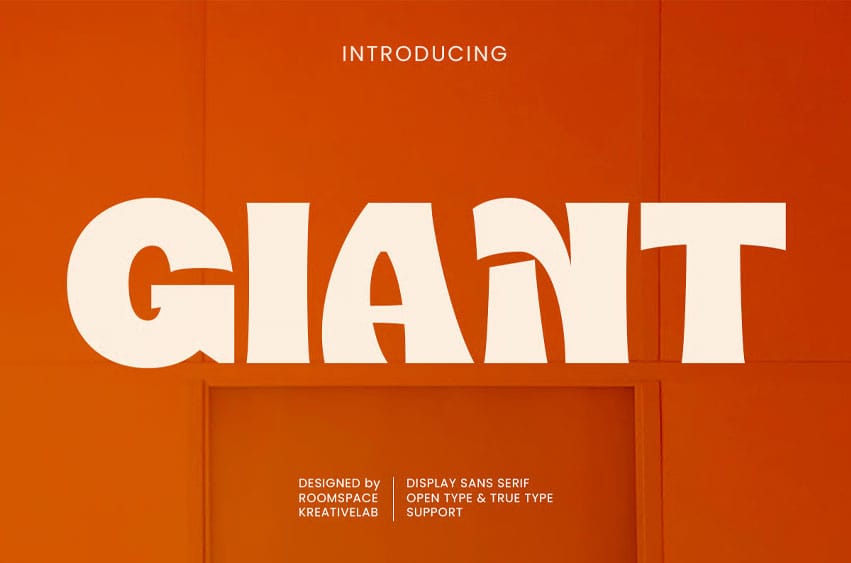
Giant Font is a bold retro display font with playful curves and a strong personality that instantly grabs attention. Its chunky letterforms bring a fun, funky, and groovy vibe while staying versatile for modern use.
Carefully designed with balanced kerning and smooth shapes, Giant works beautifully for both big headlines and creative layouts. Perfect for posters, logos, branding, packaging, social media graphics, and more. Add Giant to your collection today and make your designs stand out with style!